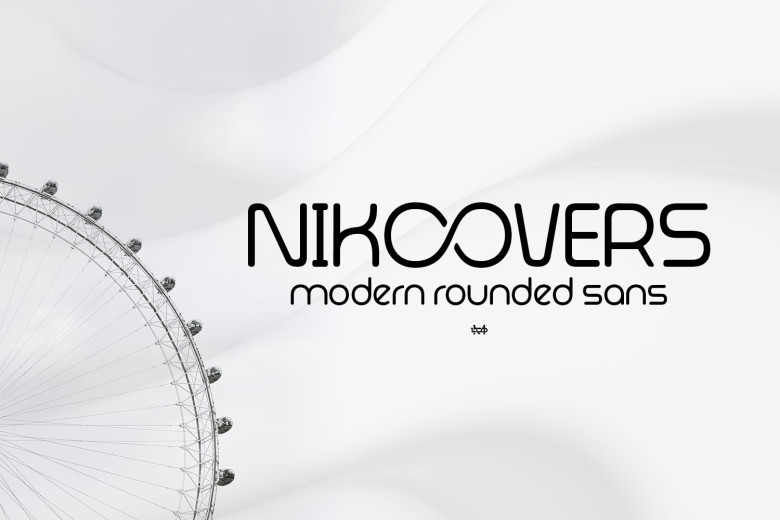
Nikoovers Font
Nikoovers is a contemporary sans-serif font with rounded edges. It exudes simplicity, versatility and usability; perfect for use in corporate branding projects as well as magazine layouts. Its geometric yet clean letterforms lend themselves perfectly for use across many design applications from logo design to magazine layouts.
Nikoovers Sans Serif Font